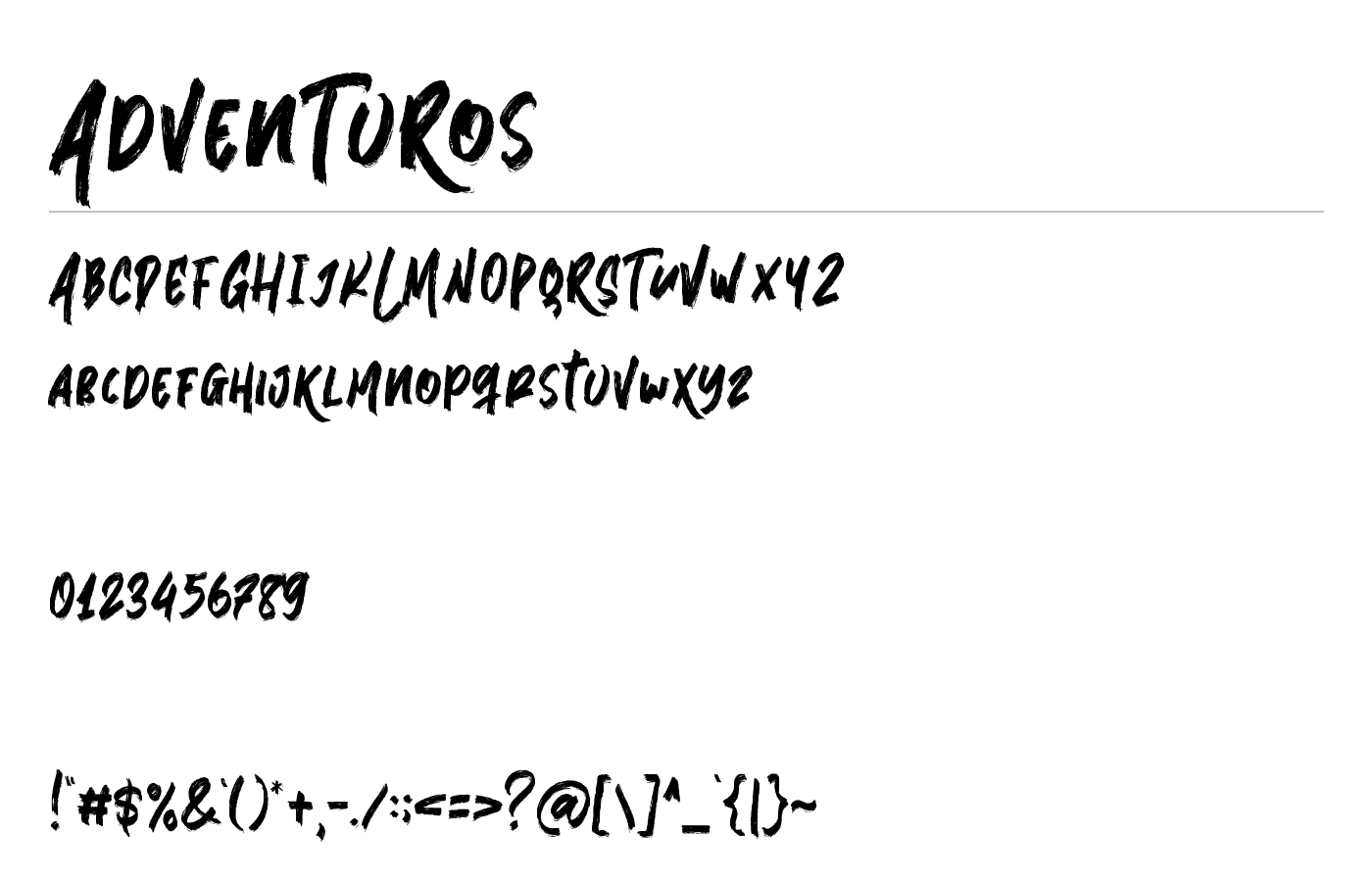
AdvenTuRos is a bold, brush-style script font that exudes energy and a hand-painted, artistic feel. Its irregular strokes and dynamic shapes give it a casual yet adventurous personality, making it perfect for designs that want to convey creativity, spontaneity, and a youthful spirit. This font works wonderfully for eye-catching headlines, logos, and branding that aim to stand out with a personal and lively touch.
AdvenTuRos Font
About AdvenTuRos Font
| Font family | AdvenTuRos Font |